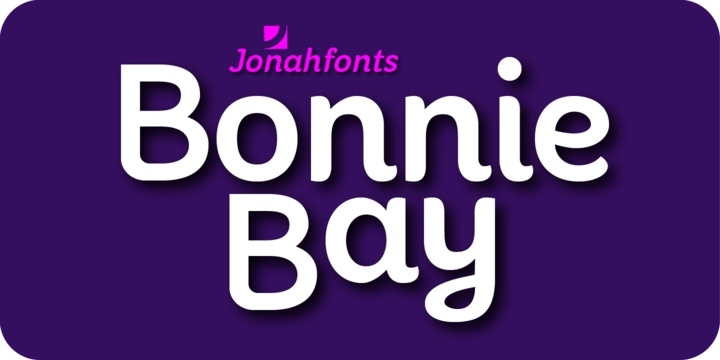
Bonnie Bay Font
Bonnie Bay Font is perfect for coastal resort branding, seaside restaurant menus, nautical lifestyle campaigns, beach vacation marketing, maritime product packaging, waterfront real estate materials, coastal wedding invitations, ocean-themed publications, and seaside hospitality branding.
What makes Bonnie Bay Font exciting is its enchanting coastal character that beautifully captures the serene beauty and tranquil atmosphere of oceanside living through gracefully flowing letterforms. The font features gentle curves and organic shapes that evoke the natural rhythm of ocean waves and coastal breezes, creating an immediate sense of relaxation and seaside charm. Its carefully crafted design reflects the peaceful elegance of coastal environments, making it perfect for brands that want to communicate serenity, natural beauty, and the refreshing escape that comes with ocean-inspired lifestyle experiences.
Bonnie Bay Font family includes various coastal weights such as Light, Regular, Medium, and Bold variations, often featuring wave-inspired alternates and maritime decorative elements. The family may include nautical symbols, ocean-themed ornaments, and coastal ligatures that enhance the font's seaside aesthetic, providing designers with comprehensive options for creating authentic coastal brand identities that resonate with beach lovers and ocean enthusiasts.
This captivating typeface has gained popularity among coastal businesses and ocean-focused brands seeking authentic maritime typography solutions. Bonnie Bay Font Free Download provides an excellent opportunity to explore this coastal font before investment. The font's character set includes maritime symbols and seaside glyphs that work perfectly for coastal tourism and ocean lifestyle industry applications. Whether you're designing for beachfront hotels, coastal dining establishments, or ocean adventure companies, Bonnie Bay Font delivers the seaside charm your project needs. Its versatile nature makes it suitable for various coastal applications including surf shops, marine conservation organizations, coastal real estate developments, and ocean-inspired lifestyle brands, ensuring your typography choices communicate the peaceful beauty and refreshing freedom of coastal living while creating memorable brand experiences that transport audiences to their favorite seaside memories through its distinctively calming and oceanically-inspired visual character.